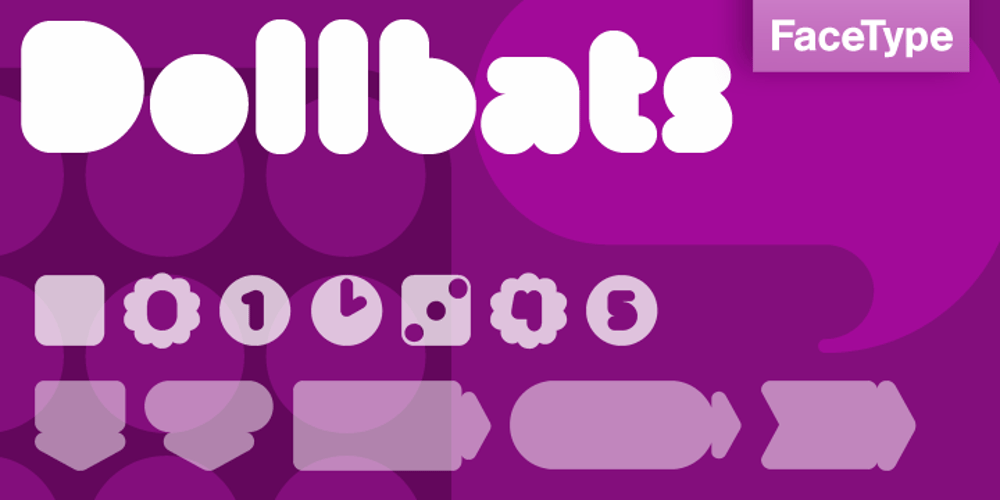
Dollbats
Dollbats font
Dollbats Font Family was designed by Marcus Sterz and published by FaceType. Dollbats contains 1 styles and family package options. Fat Arrows, Symbols and Numbers that fit perfectly with Doll from FaceType.